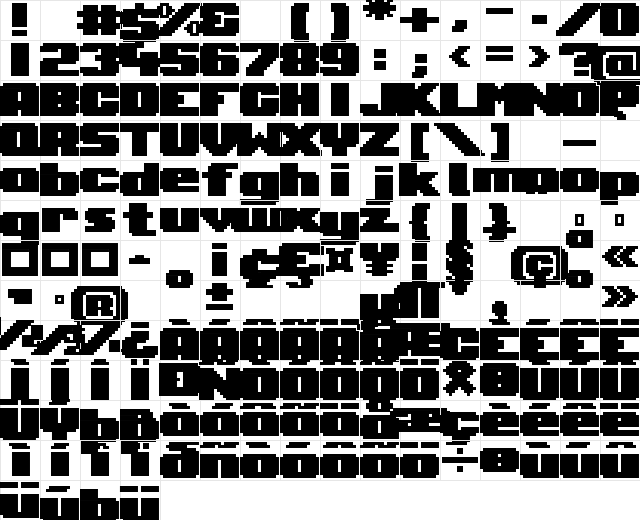
01Dominatrix Bold
Design Context for 01Dominatrix Typeface
01Dominatrix is a composed and adaptable typeface that performs quietly and consistently across a wide range of design contexts. Its bold stroke weight gives it real presence on the page.